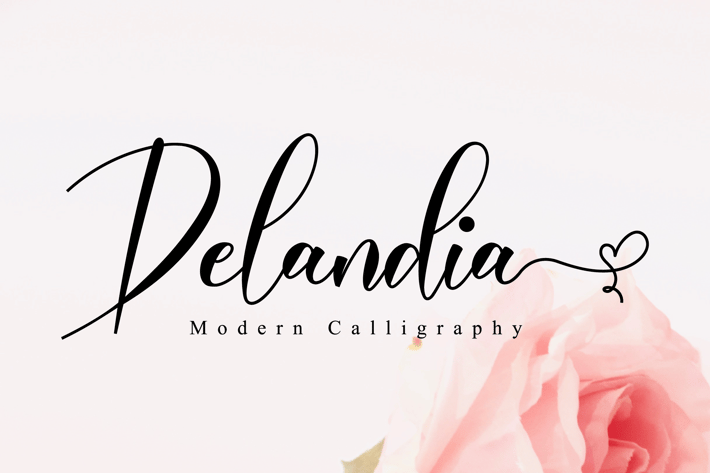
Delandia - Lovely Script Font
Delandia is a beautiful script font featuring cute hearts in its swashes. Its classy and elegant look makes it perfect for logos, branding, invitations, stationary, wedding designs and social media posts.
Modern Handwritten Font
Beautiful Swash (Ending tail)
Beautiful Titling (Beginning tail)
Special Ligatures